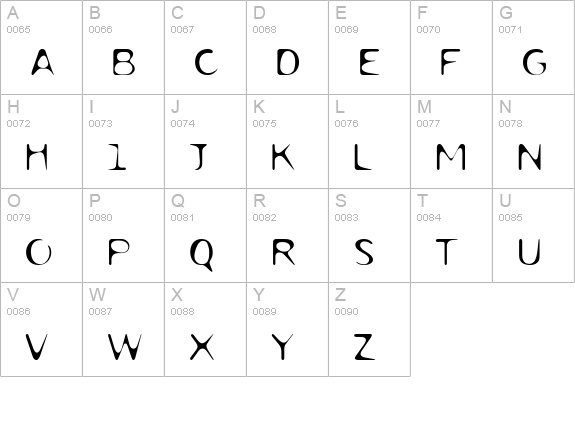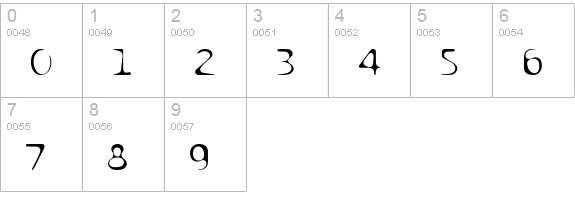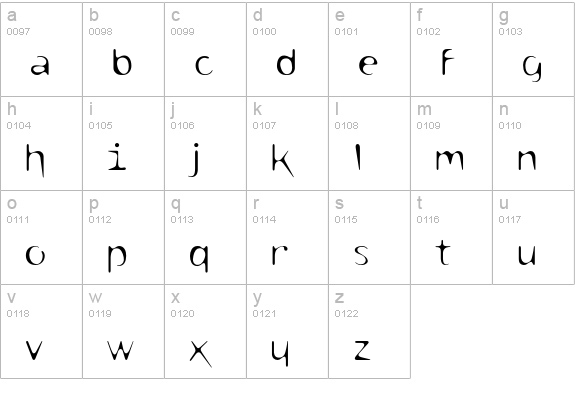
DropletLite Font Details
DropletLite font is a sleek and modern typeface that exudes elegance and sophistication. Its clean lines and rounded edges give it a friendly and approachable feel, making it perfect for a wide range of design projects. The font features a unique droplet-like design that adds a touch of whimsy and creativity to any text. What makes DropletLite font even more appealing is that it is completely free to download. That's right, you can easily access this stunning typeface at FontsMarket.com without having to spend a dime. Whether you're working on a branding project, a website design, or simply looking to add a fresh and modern touch to your work, DropletLite font is sure to impress. Download it today and elevate your designs with this beautiful and versatile typeface.